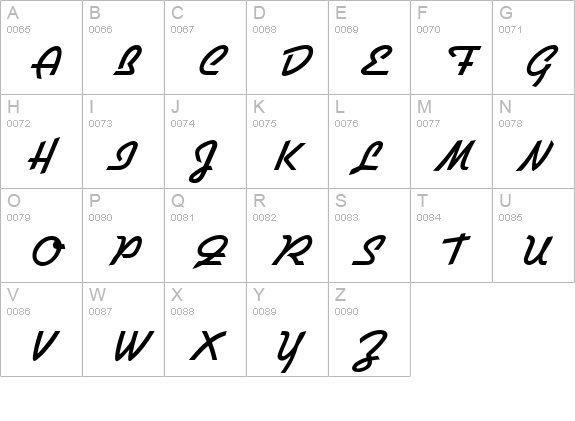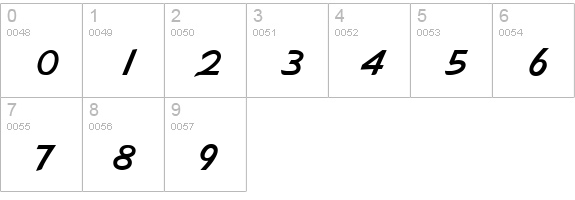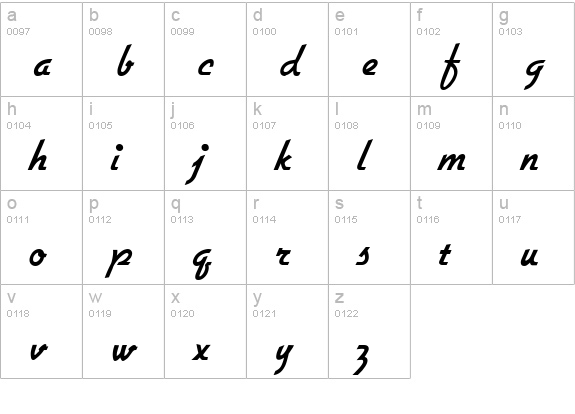
G731-Script-Regular Font Details
G731-Script-Regular is the standard, neutral variant in the G731 typeface family \xE2\x80\x94 well suited to general body text, paragraphs, and standard typographic work.
Introducing G731-Script-Regular font, a versatile and elegant typeface perfect for adding a touch of sophistication to your design projects. This free font offers a seamless blend of modern style and handwritten charm, making it ideal for various creative applications. With its smooth curves and flowing lines, G731-Script-Regular exudes a sense of grace and refinement that will elevate any design. Whether you're working on invitations, logos, packaging, or other projects, this font will bring a unique flair to your work. Best of all, G731-Script-Regular is available for free download at FontsMarket.com. Simply head over to the website to access this stunning font and unleash your creativity. Add a touch of class to your designs with G731-Script-Regular font today!